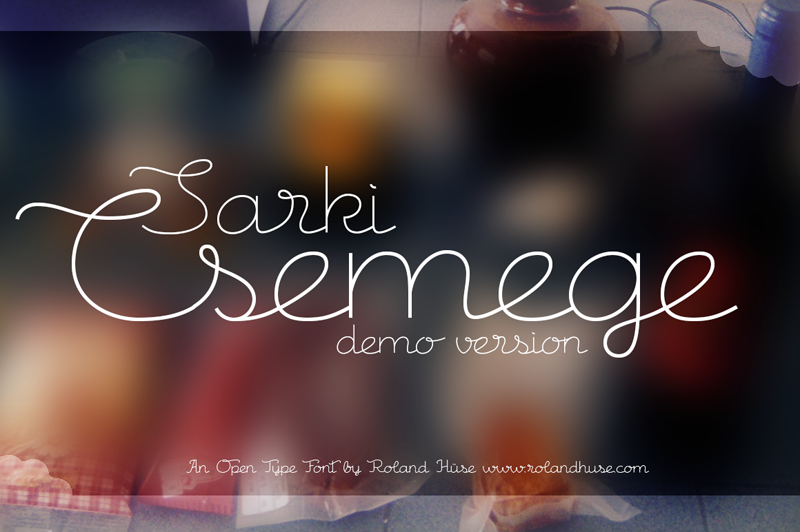
Preview and download Csemege Font. Created by Runes & Fonts in Script Various styles with Demo license.
CSEMEGE DEMO is the demo version of this fully cursive even script inspired by Hungary's 60' 70's shop signages of mostly food and grocery stores and restaurants, and their neon light scripts. Csemege means Delicatessen in Hungarian. I have developed this set of characters with Contextual alternates and a few Stylistic alternates to make the letter connections smooth and perfect. It has a friendly look yet decorative and elegant script. For best result please make sure you are using this font with softwares that supports open type features and you have these features turned on: - Contextual alternates and - Standard ligatures. For full version and license please visit http://www.revolge.com/product/csemege/ If any question or feedback please feel free to contact me. Happy designing and good luck with your work! Roland http://www.rolandhuse.com https://www.facebook.com/pages/Runes-And-Fonts/123221817784772 |